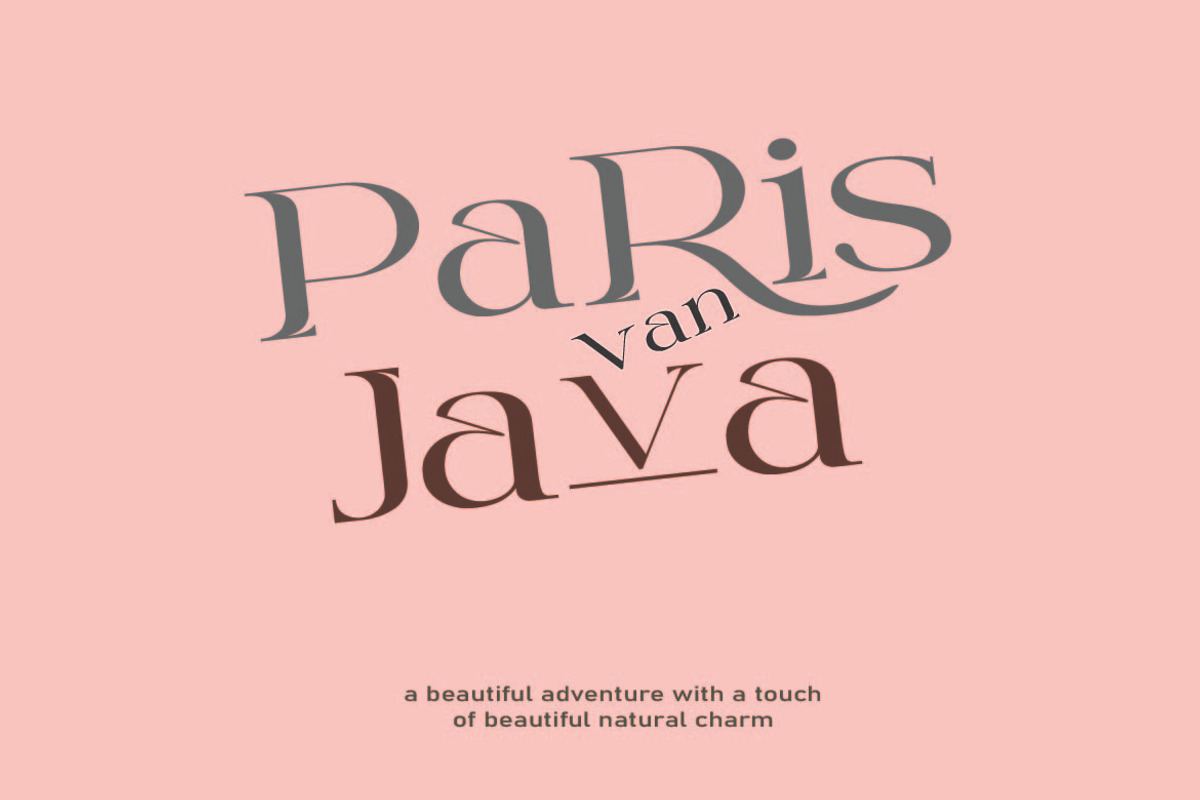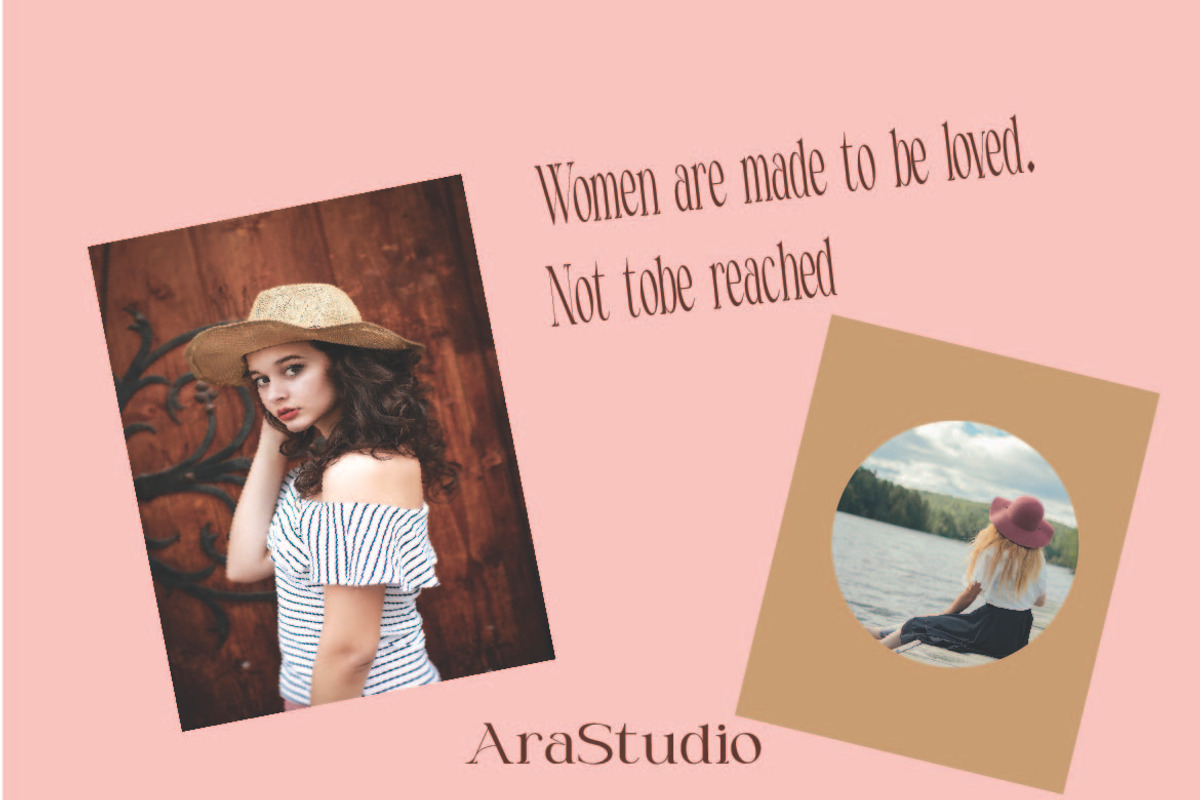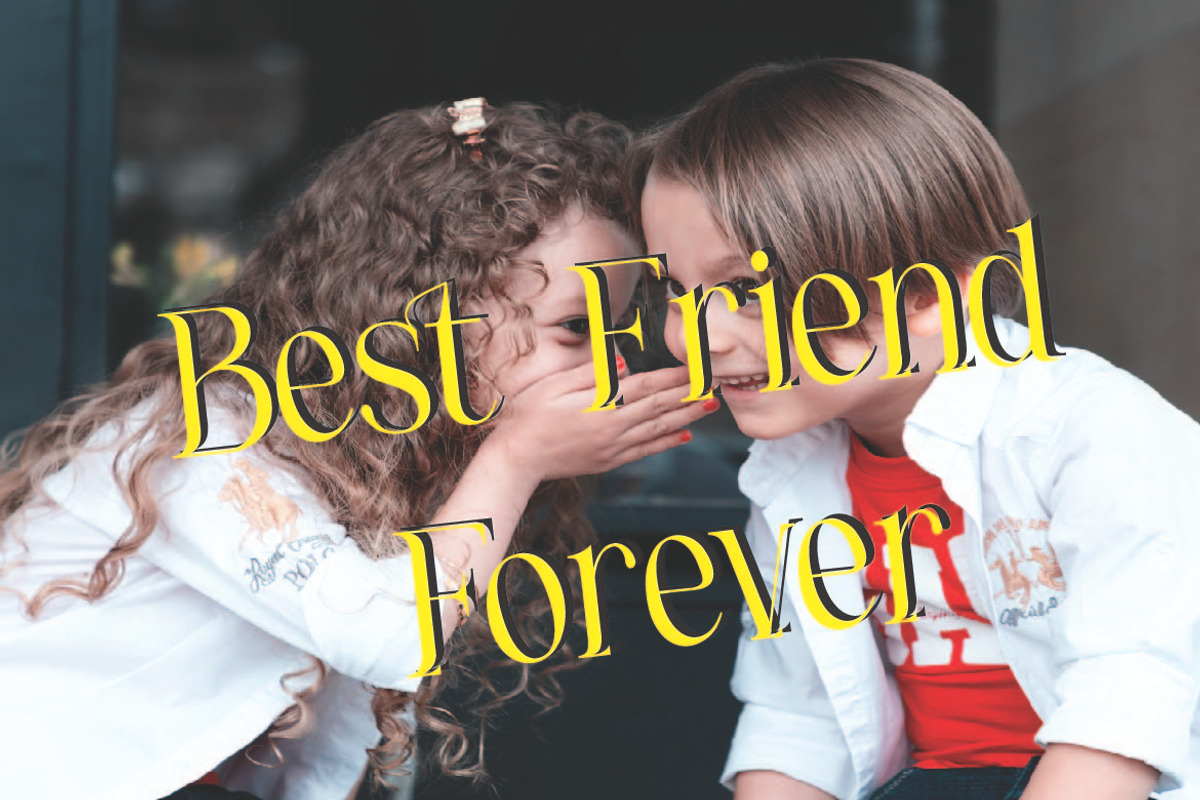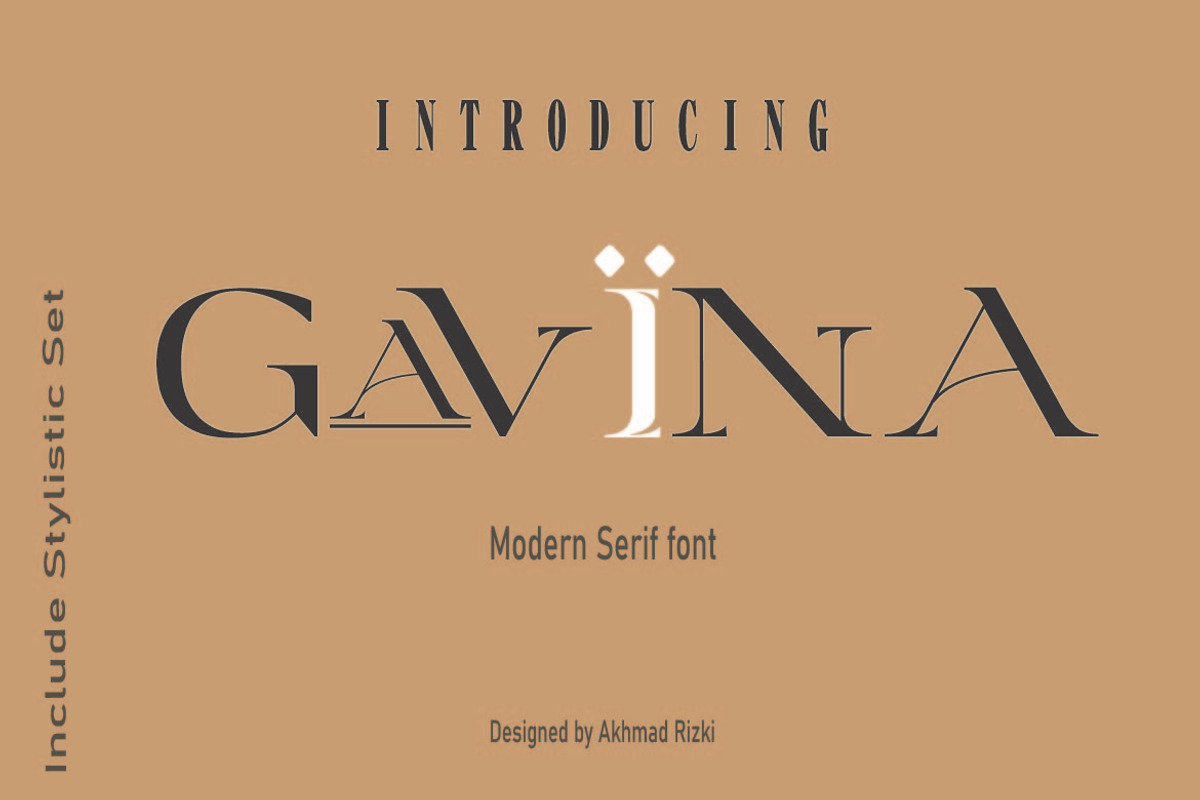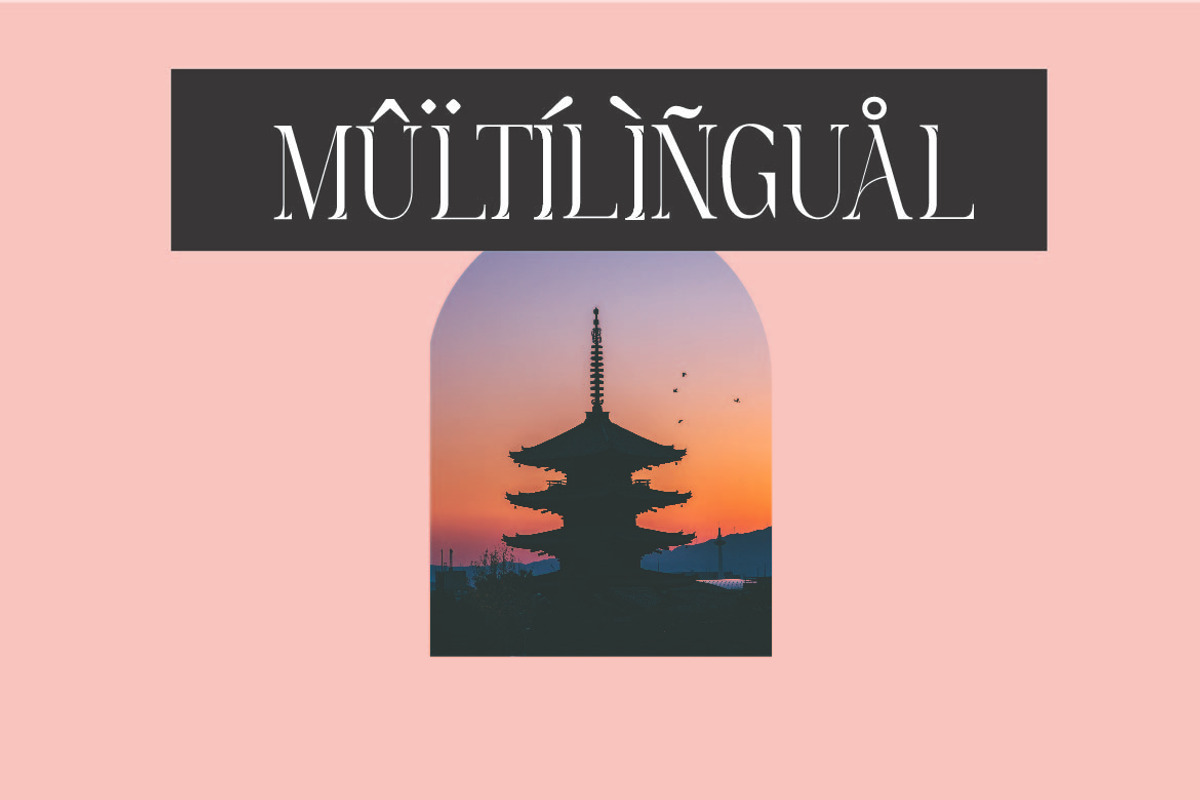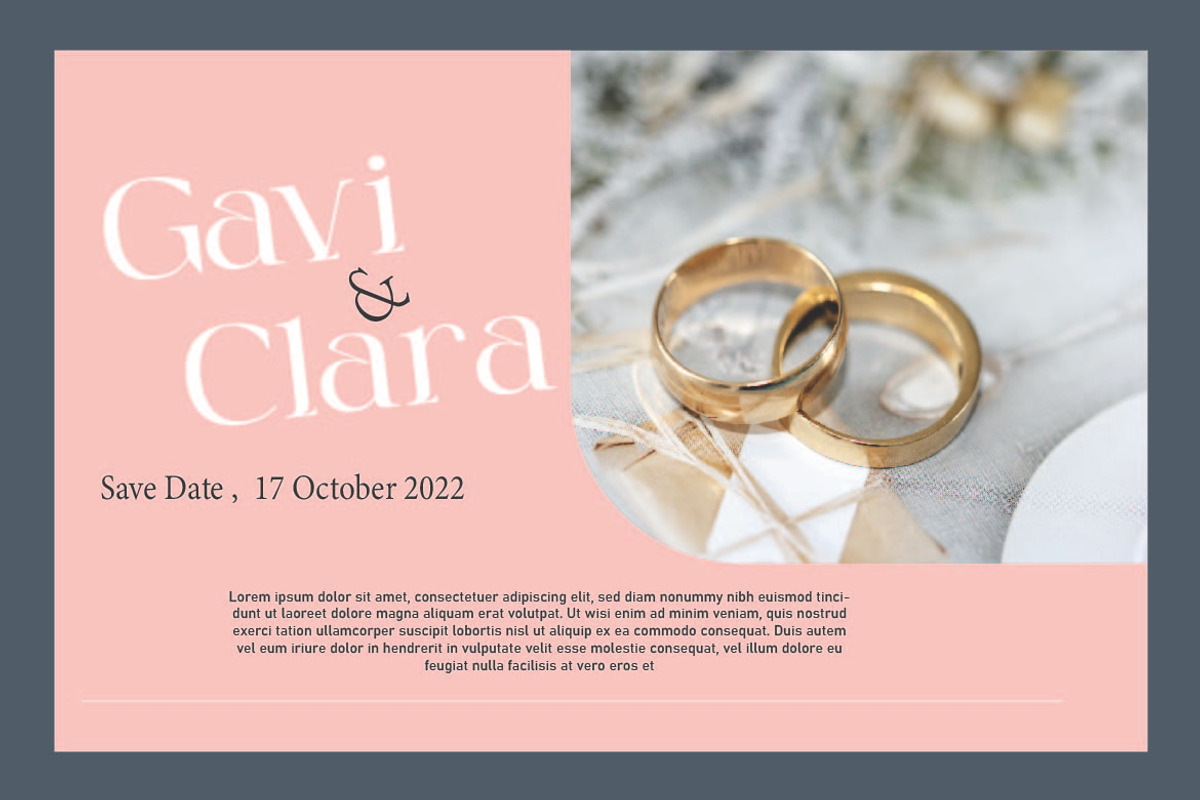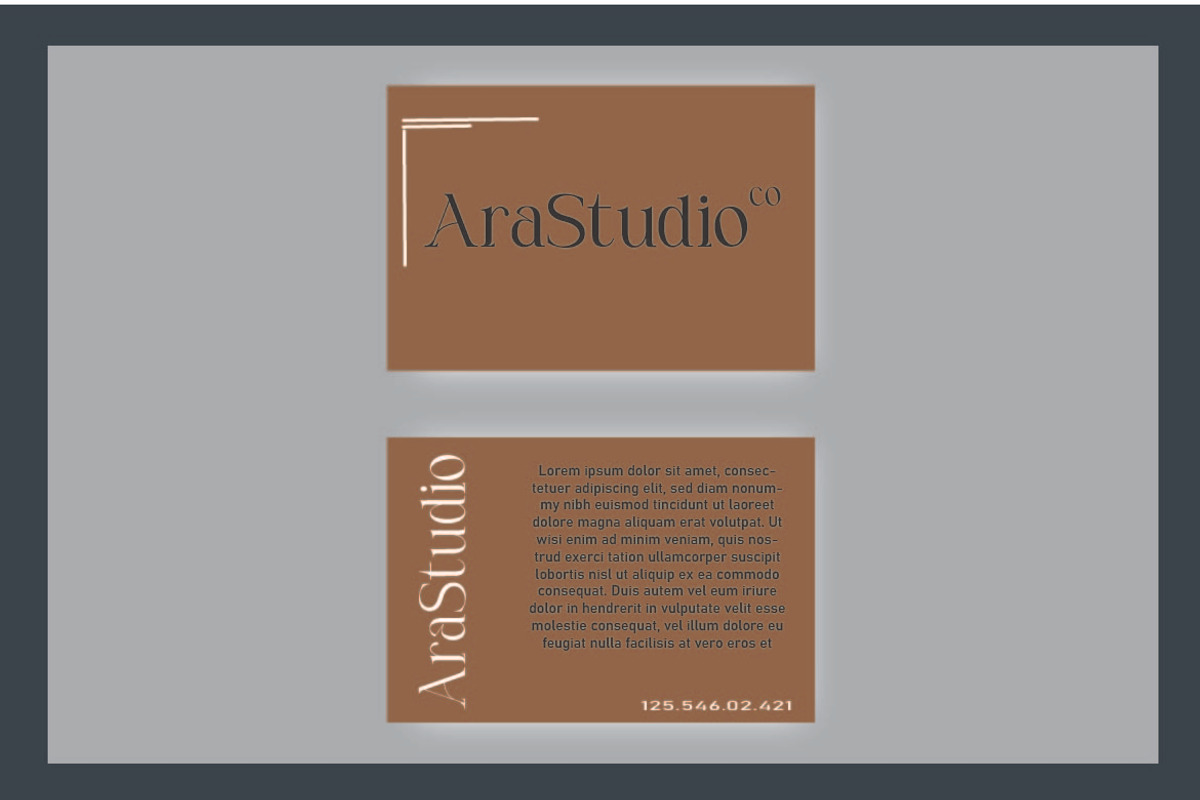
Gavina
Gavina Font is Beautyful Serif and modern font combined with a sweet touch and beautifully curved each letter. using a touch of soft curves so that it is pleasing to the eye. Gavina Font is great for: Wedding invitations, fashion magazines, logos, signatures, and suitable for watermark photography.